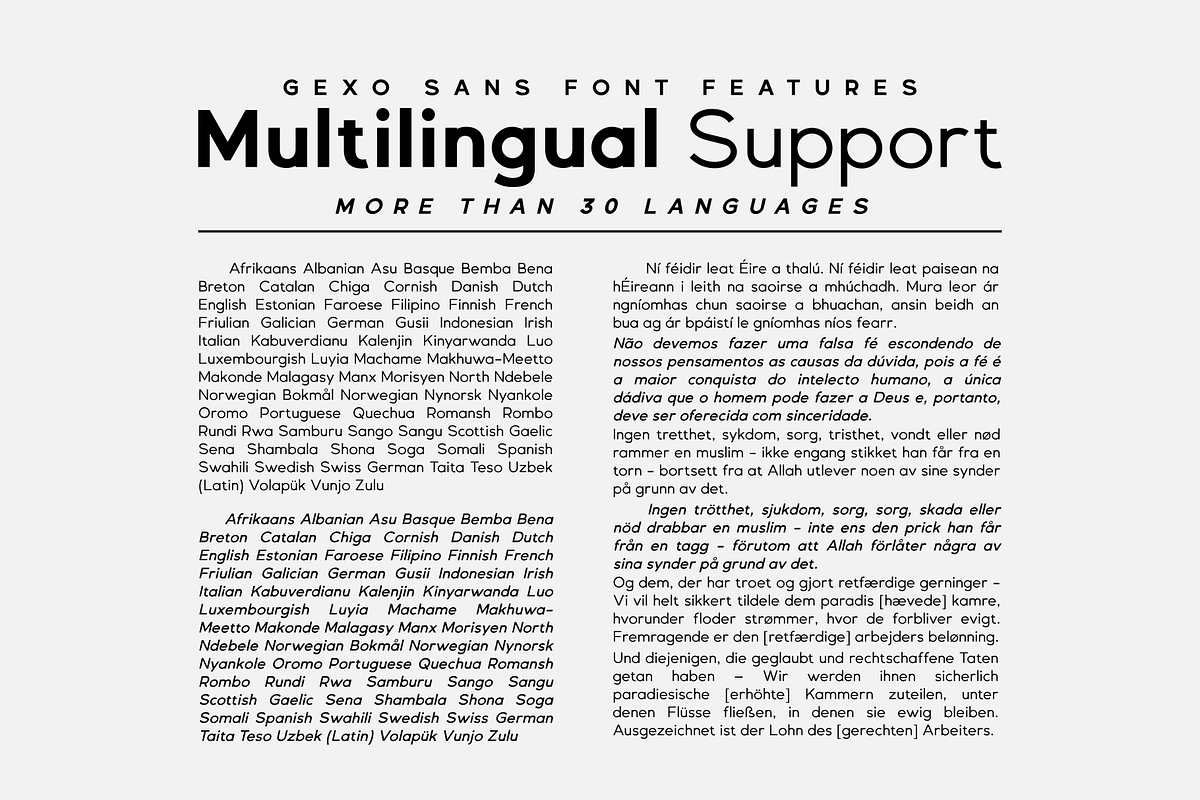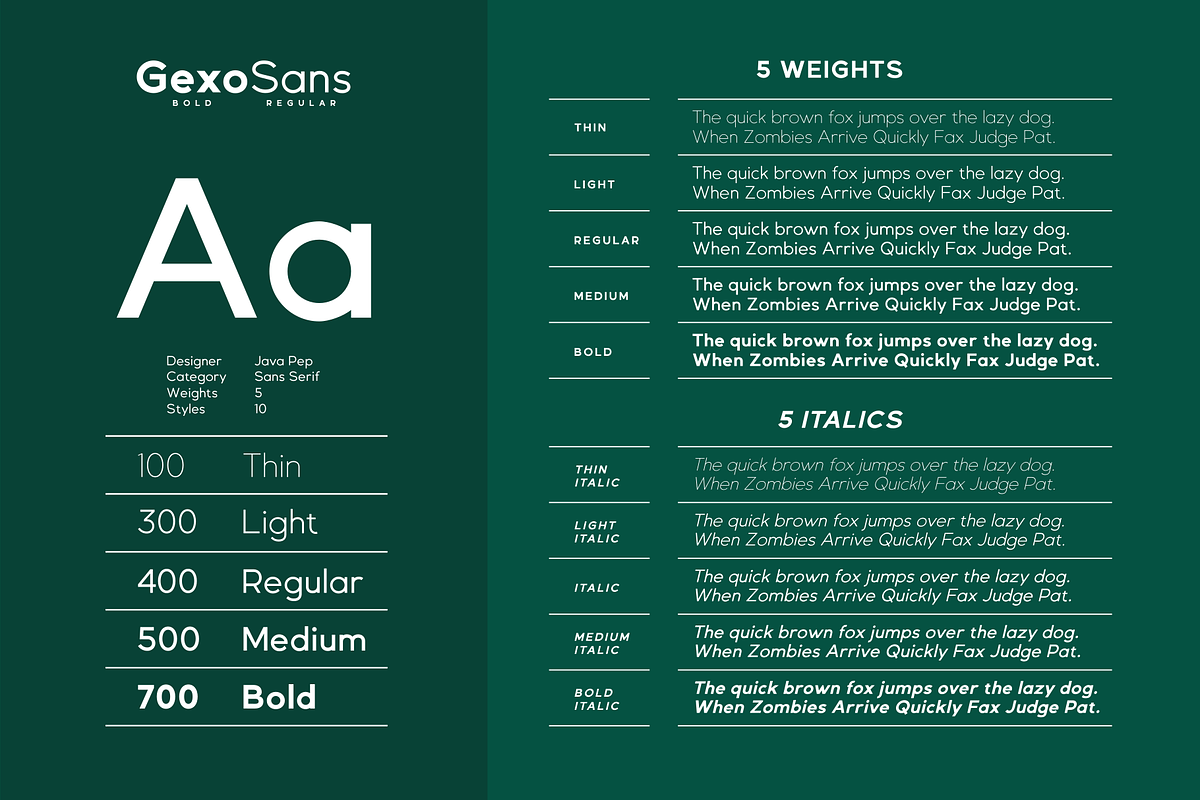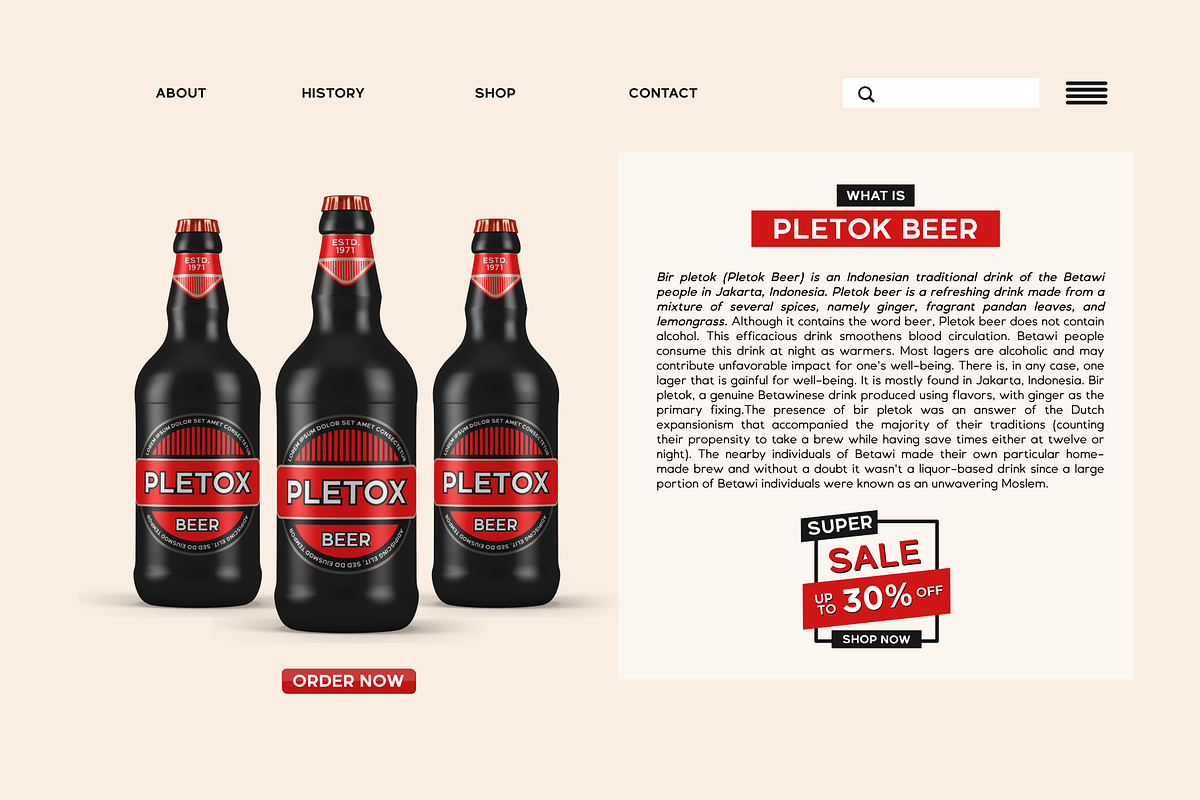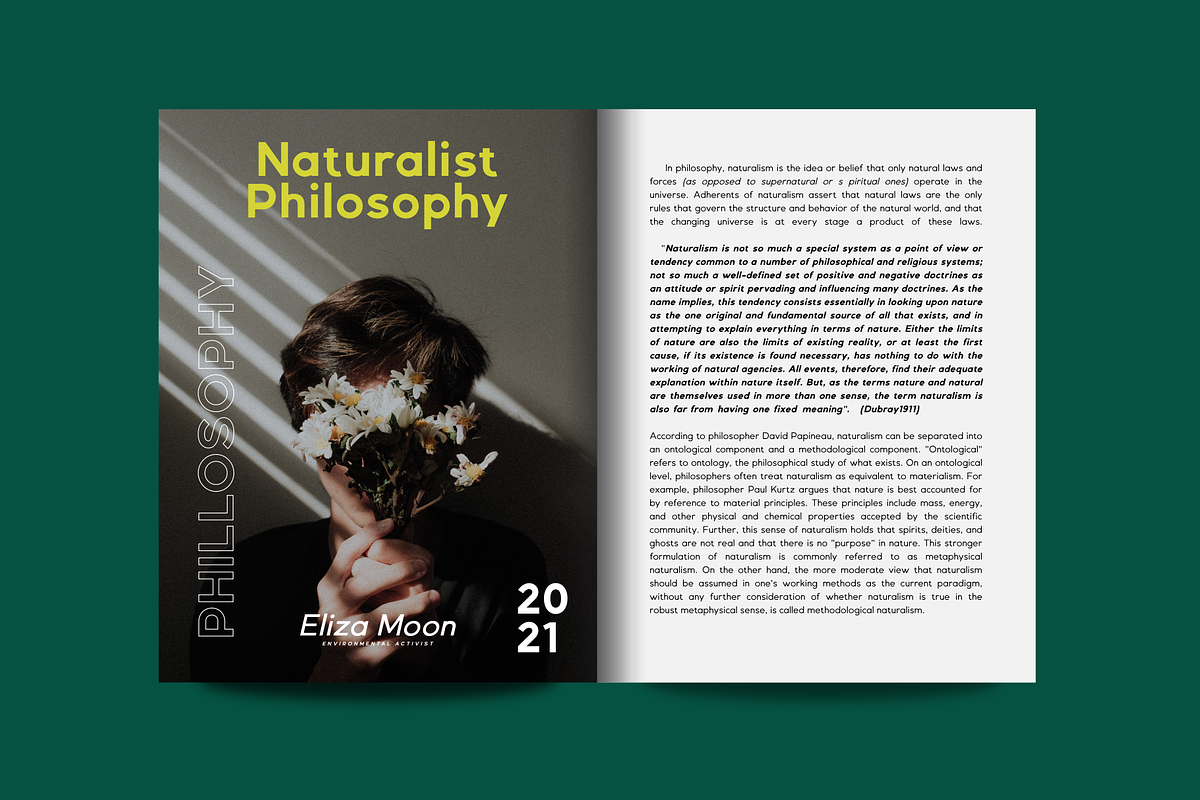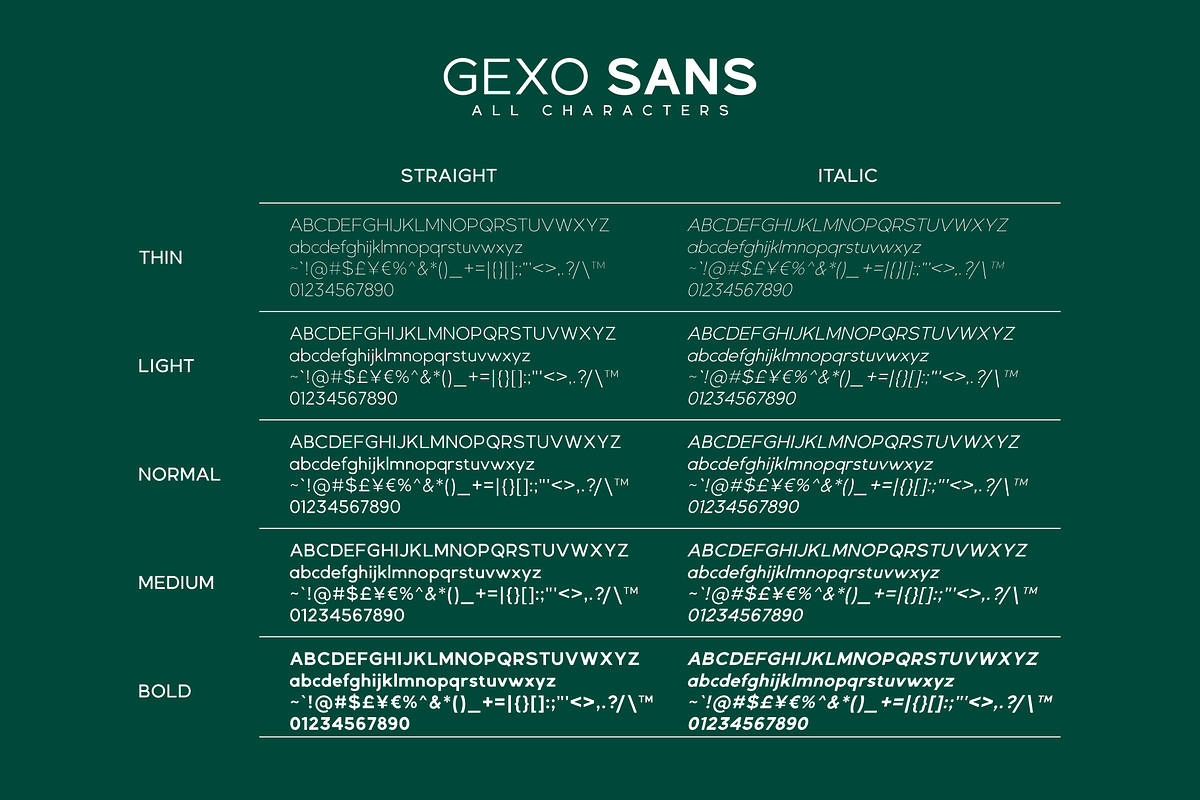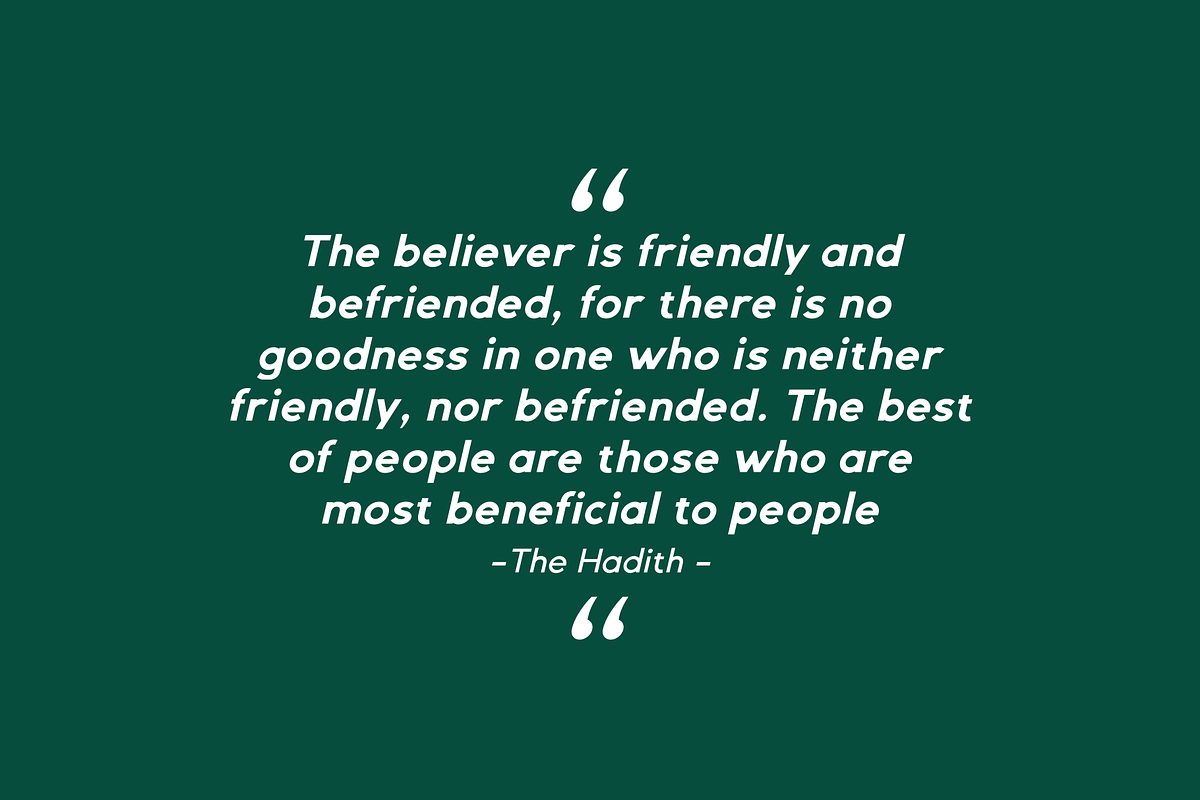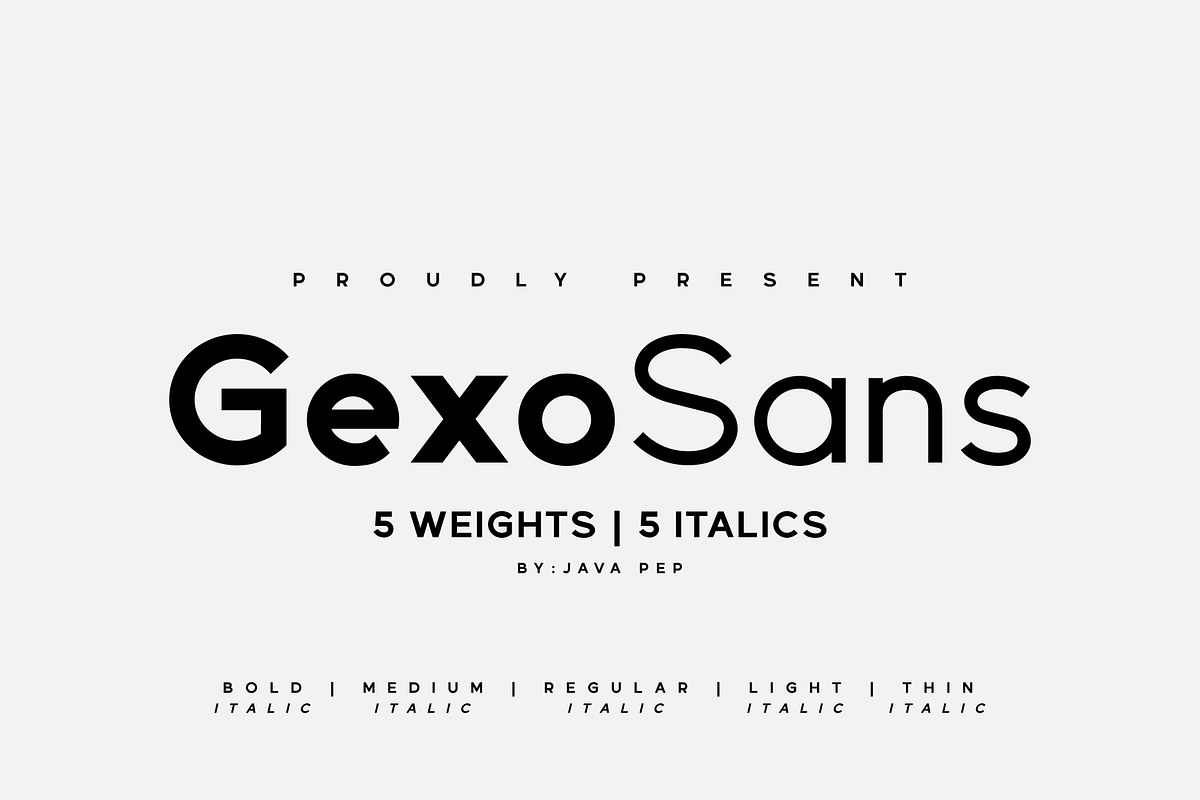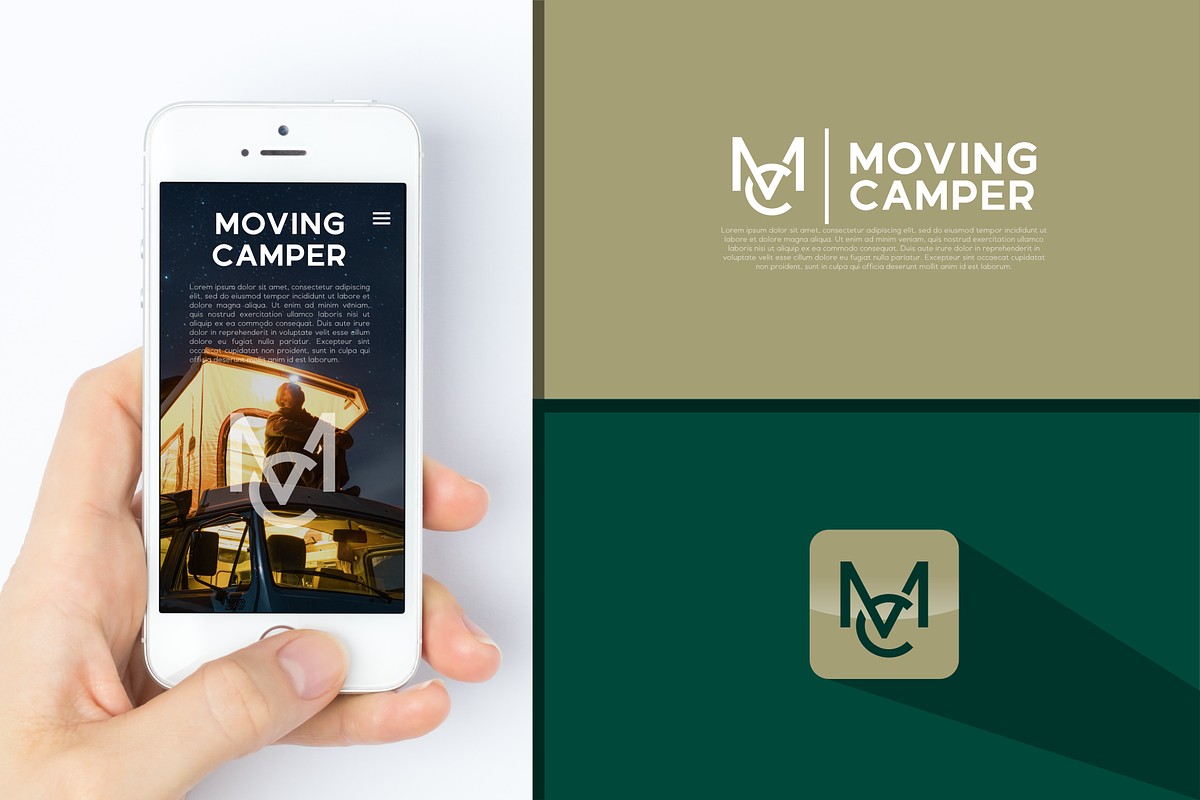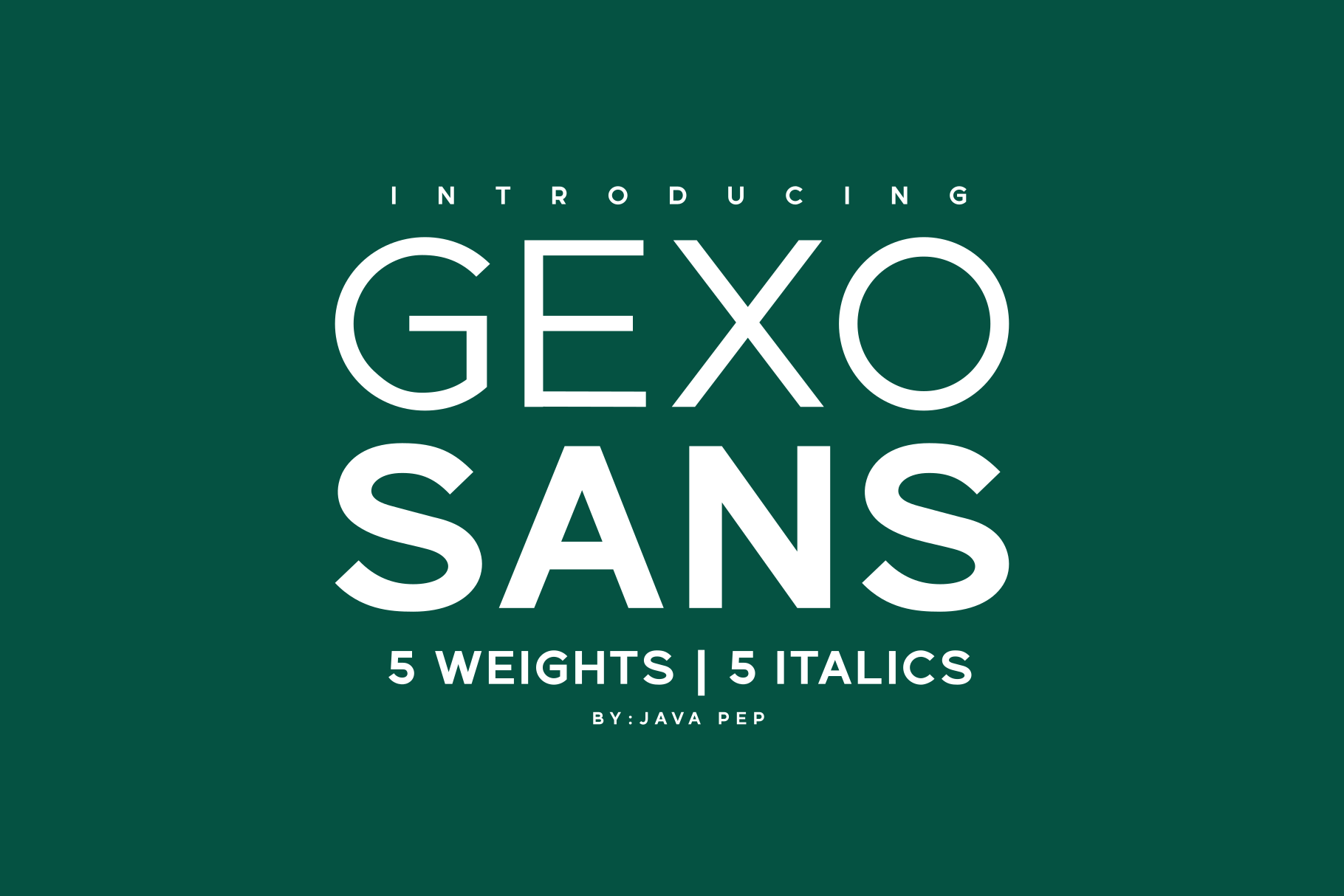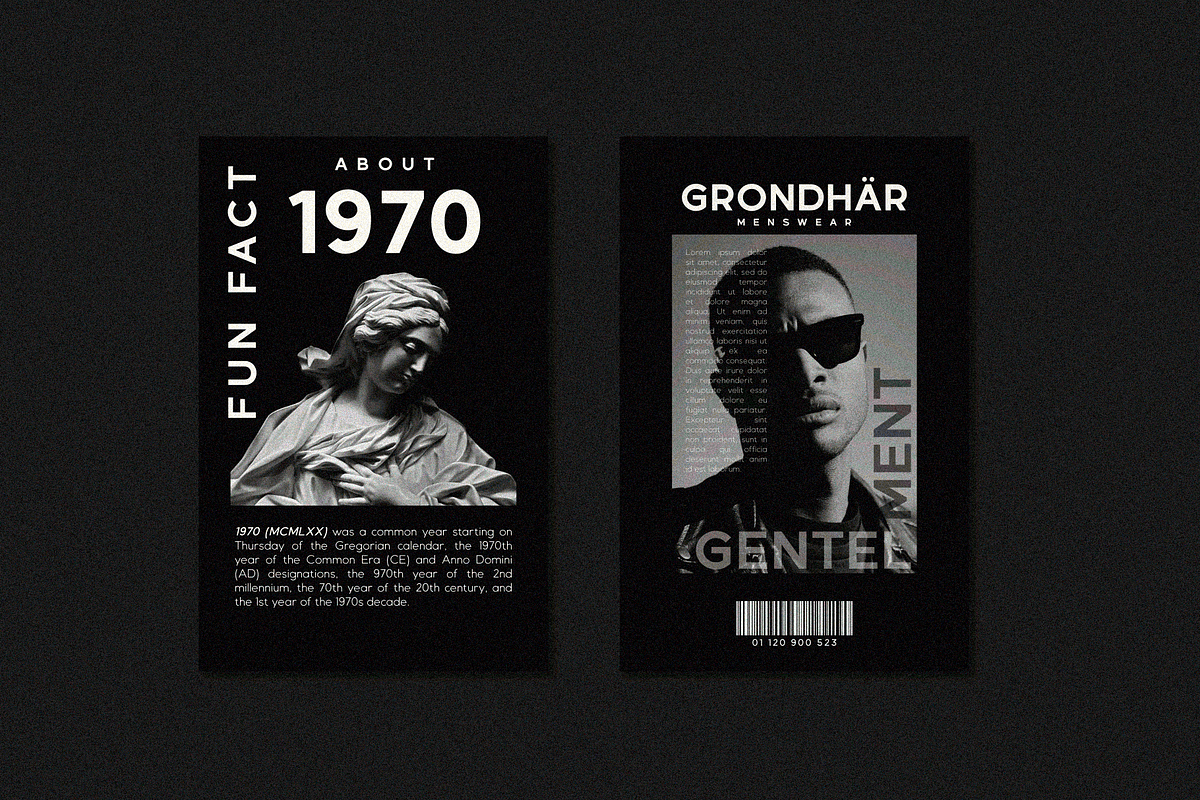
Gexo Sans - elegant font
Proudly present newest elegant sans serif font, Gexo Sans font is the family font that has 5 weights and 5 italics. Gexo Sans designed for elegant and outstanding purposes for your project. This font is perfect for logotype, advertising poster, title, headline, publishing, text font, and etc. Gexo Sans is supporting multilingual more than 30 languages.
- Gexo Sans Family (Bold, Medium, Regular, Light, Thin)
- Supports Multilingual more than 30 languages
- Complete characters uppercase, lowercase, numeral, and punctuations
- 10 styles, 5 weights, and 5 italics